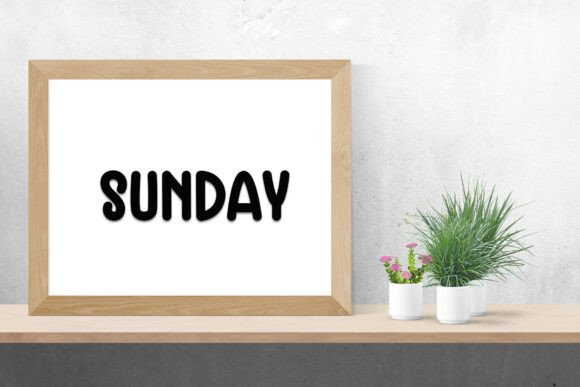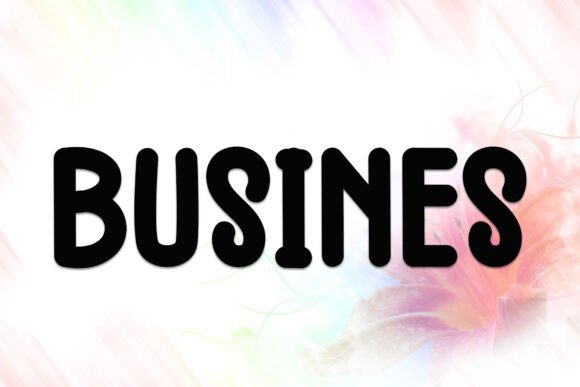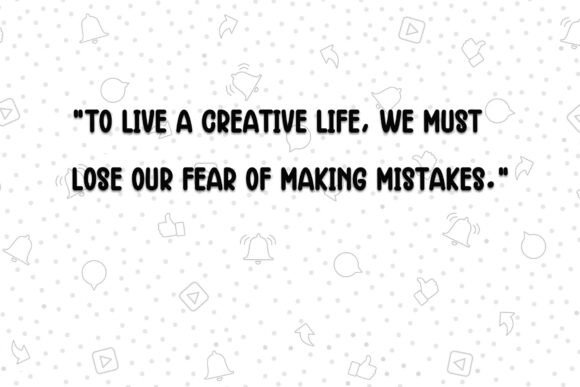
Introduction to Numbers Font
As designers, we’ve all been there – staring at a blank canvas, trying to come up with the perfect idea for a project. The cursor blinks, the mind goes blank, and the pressure mounts. But what if I told you that sometimes, all it takes is a little inspiration from a high-quality design resource to get those creative juices flowing? For me, it was a chance discovery of the Numbers Font that sparked an idea for a fun kids’ design project.
With its clean and playful handwritten style, the Numbers Font is a valuable addition to any designer’s toolkit. Perfect for educational projects, posters, and fun branding, this friendly font is easy to read and full of charm. Whether you’re working on a creative project that requires a lighthearted vibe or simply looking for a fresh way to add some personality to your designs, the Numbers Font is sure to deliver.
Key Features of Numbers Font
- High-quality design resource ideal for creative projects, offering a unique and stylish touch.
- Perfect for use in digital and print projects, including logos, typography, and branding materials.
- Unique characteristics and style make it an excellent choice for designers seeking a distinctive and eye-catching design element.
Honest Review: Numbers Font
I recently had the opportunity to work with Numbers Font for a creative project and I must say it’s been a game-changer. This font is a great design resource that offers a high quality, clean, and modern look that’s perfect for any project.
- ✨ The font is highly customizable, allowing you to easily adjust the size and color to fit your project’s needs.
- ✨ The transparent background option is a great feature for creating a seamless look in your designs.
- ⚠️ The font may not be suitable for projects that require a lot of bold or italic text, as it can become difficult to read.
- ⚠️ The font is a bit limited in terms of style options, so you may need to get creative with your design to make it stand out.
Overall, I’m really impressed with Numbers Font and would highly recommend it to anyone looking for a high-quality design resource. With a little creativity and customization, this font can help take your project to the next level.
Numbers Font
The Numbers Font is a versatile design resource ideal for any creative project. Its high-quality, elegant style makes it perfect for a variety of applications.
Tips for Getting the Most Out of Numbers Font
For a transparent background, use the Numbers Font on a white or light-colored background.
Experiment with different font sizes and styles to achieve the desired effect.
The Numbers Font is ideal for:
- Business cards and invitations
- Wedding and event designs
- Marketing materials and brochures
Alternatives to Numbers Font
Open Sans is a high-quality sans-serif font perfect for any creative project. It’s highly legible and suitable for both body text and headings. When to use: body text, headings, and design elements that require a clean and modern look.
It compares to Numbers Font by offering a more modern and sleek design, with a wider range of weights and styles to choose from. Open Sans is also a free download, making it an excellent alternative to Numbers Font.